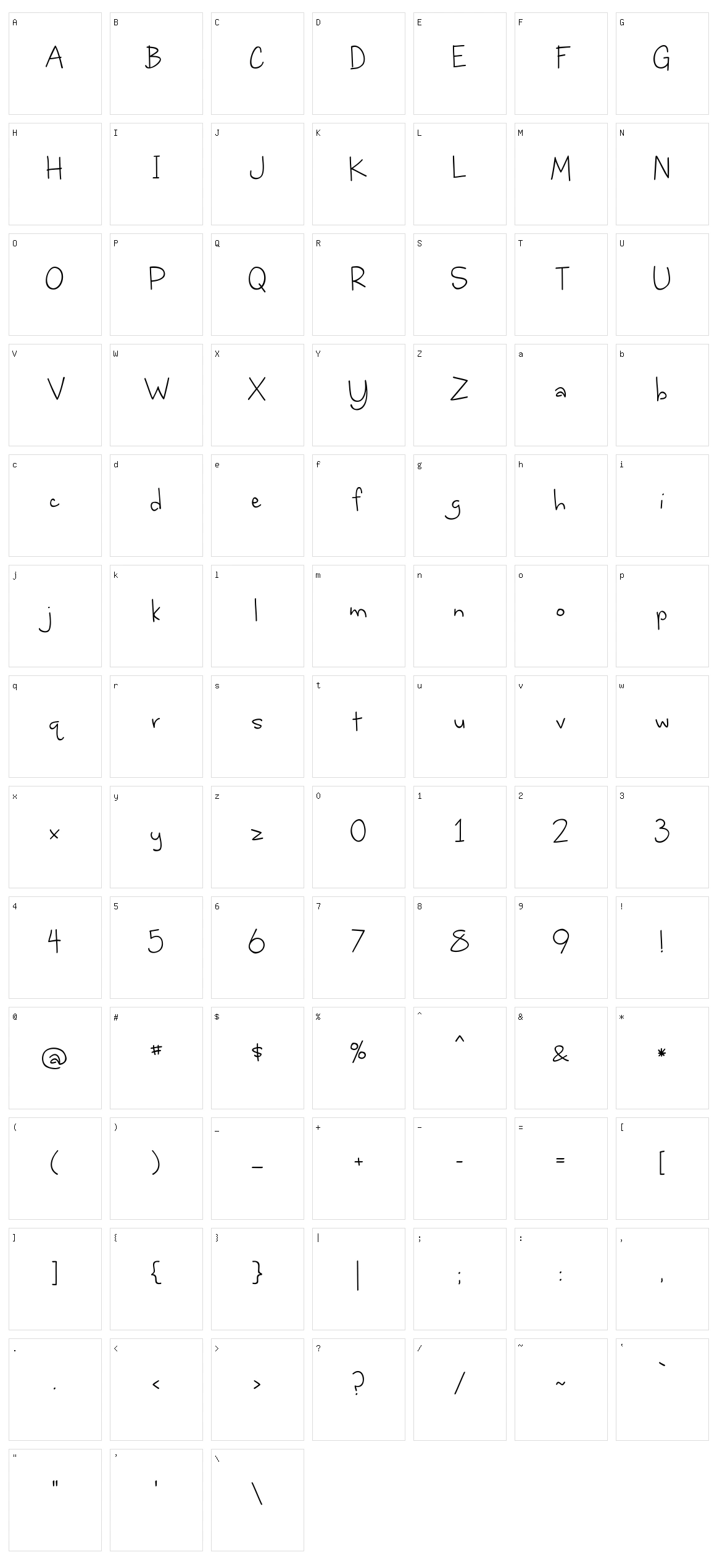
The free font Where stars shine the brightest is carefully designed by Brittney Murphy Design, showcasing a thoughtful balance of creativity and usability and falls under the Script font style. When you download the ZIP file, it contains only 29.36 KB of font files, making it lightweight and quick to download. Please review the license details below to understand permitted usage and distribution rights. If license information is not available, we recommend using this font for personal projects only or contacting the author directly for commercial usage permissions.